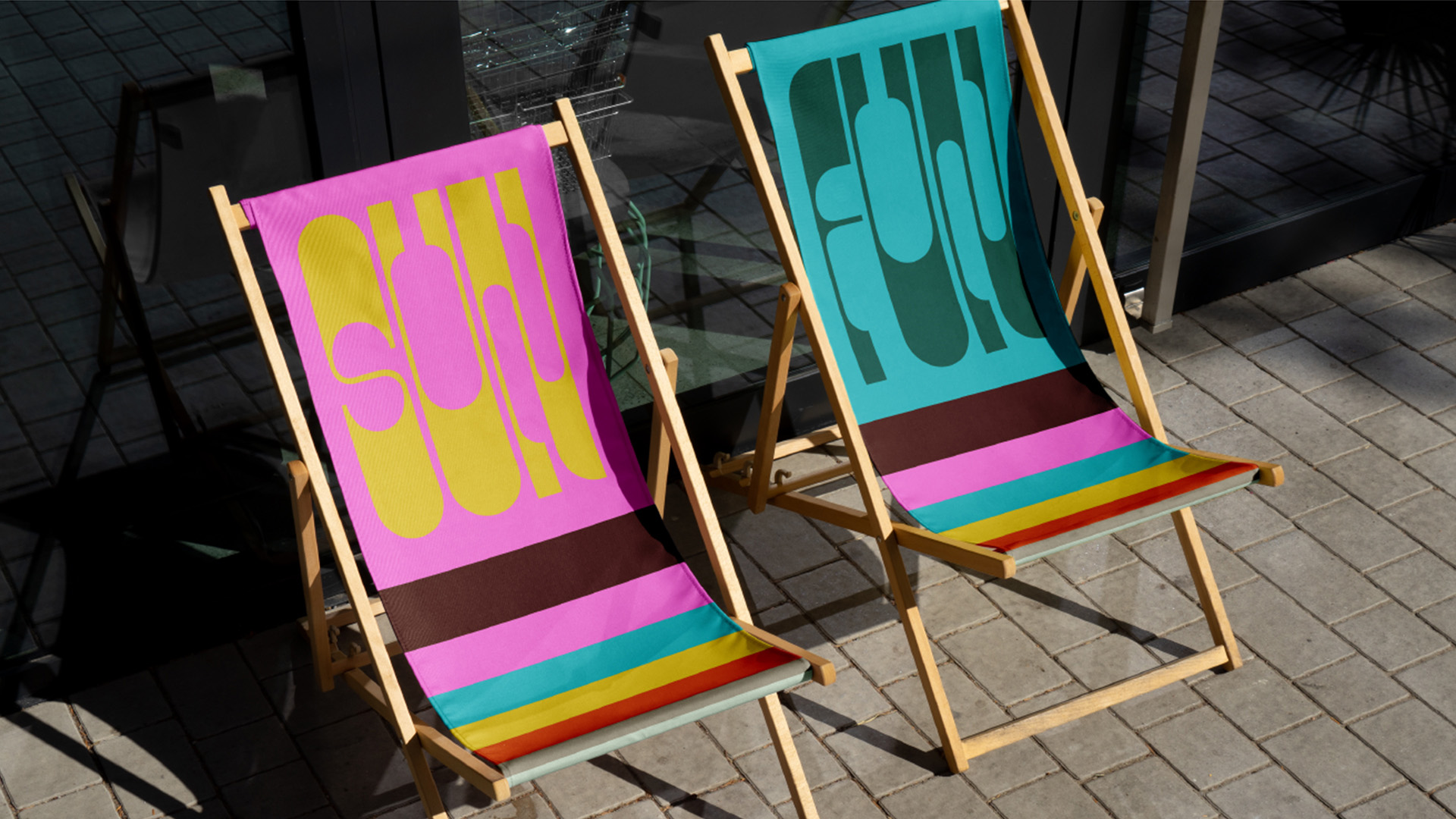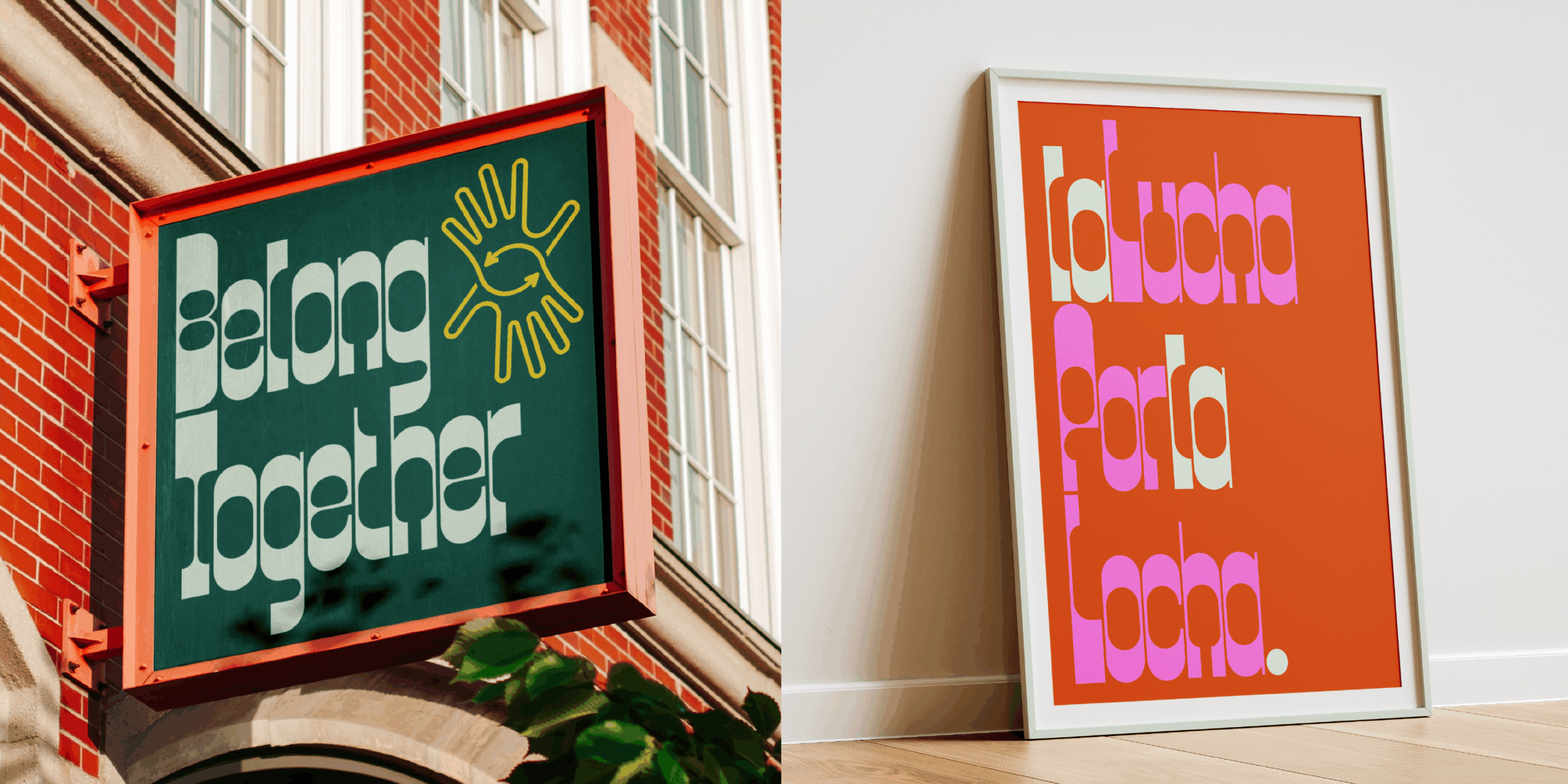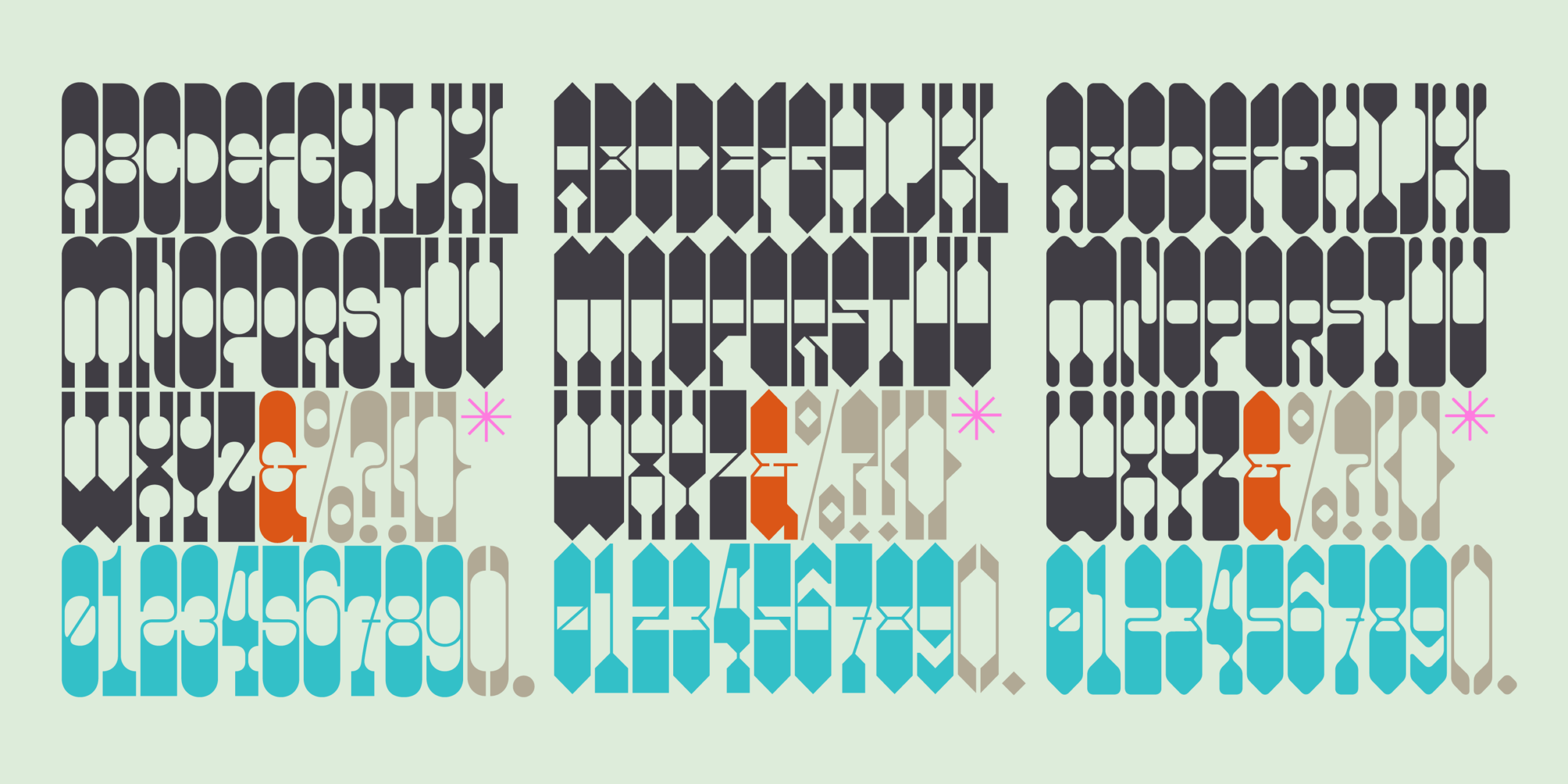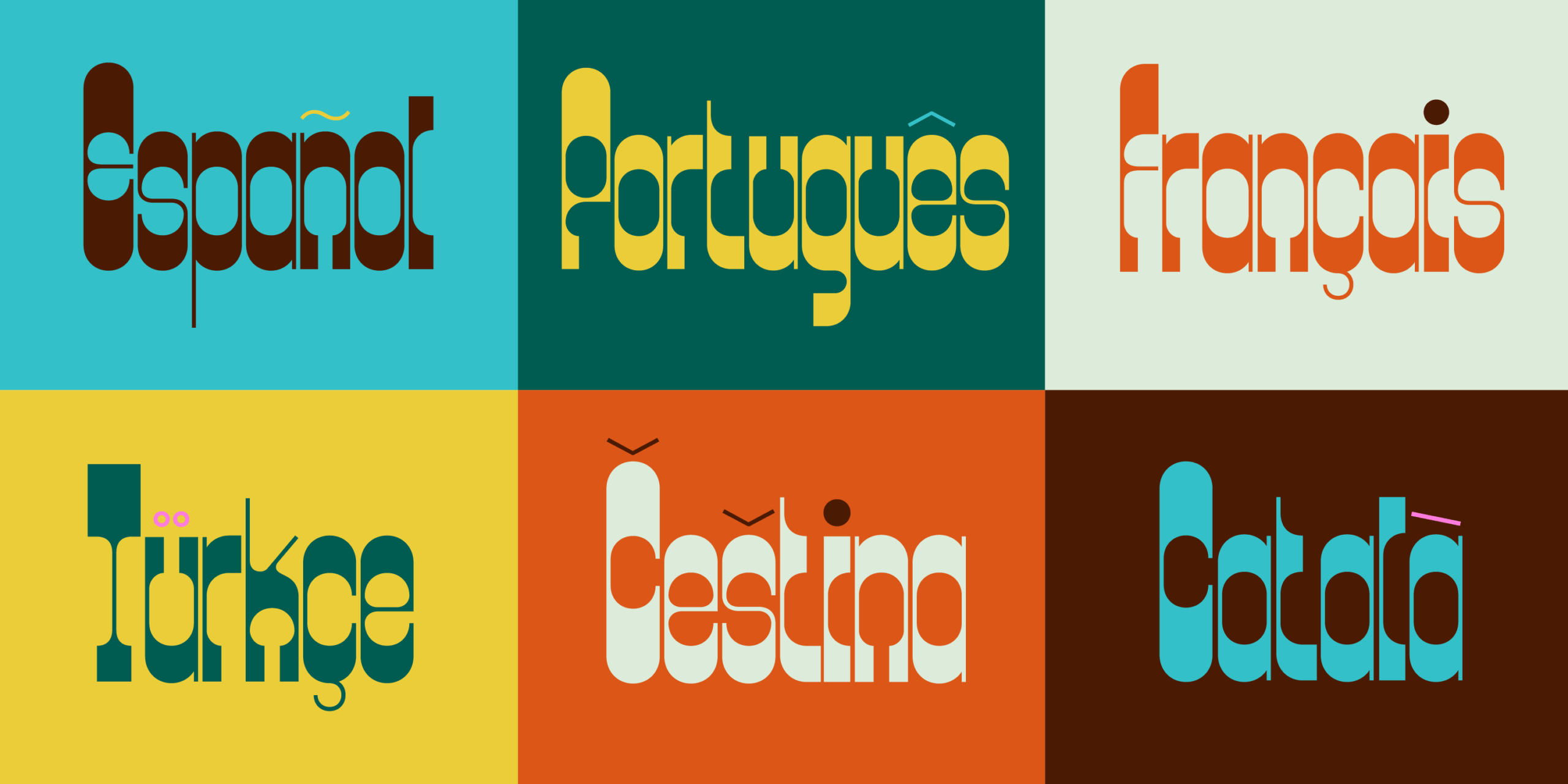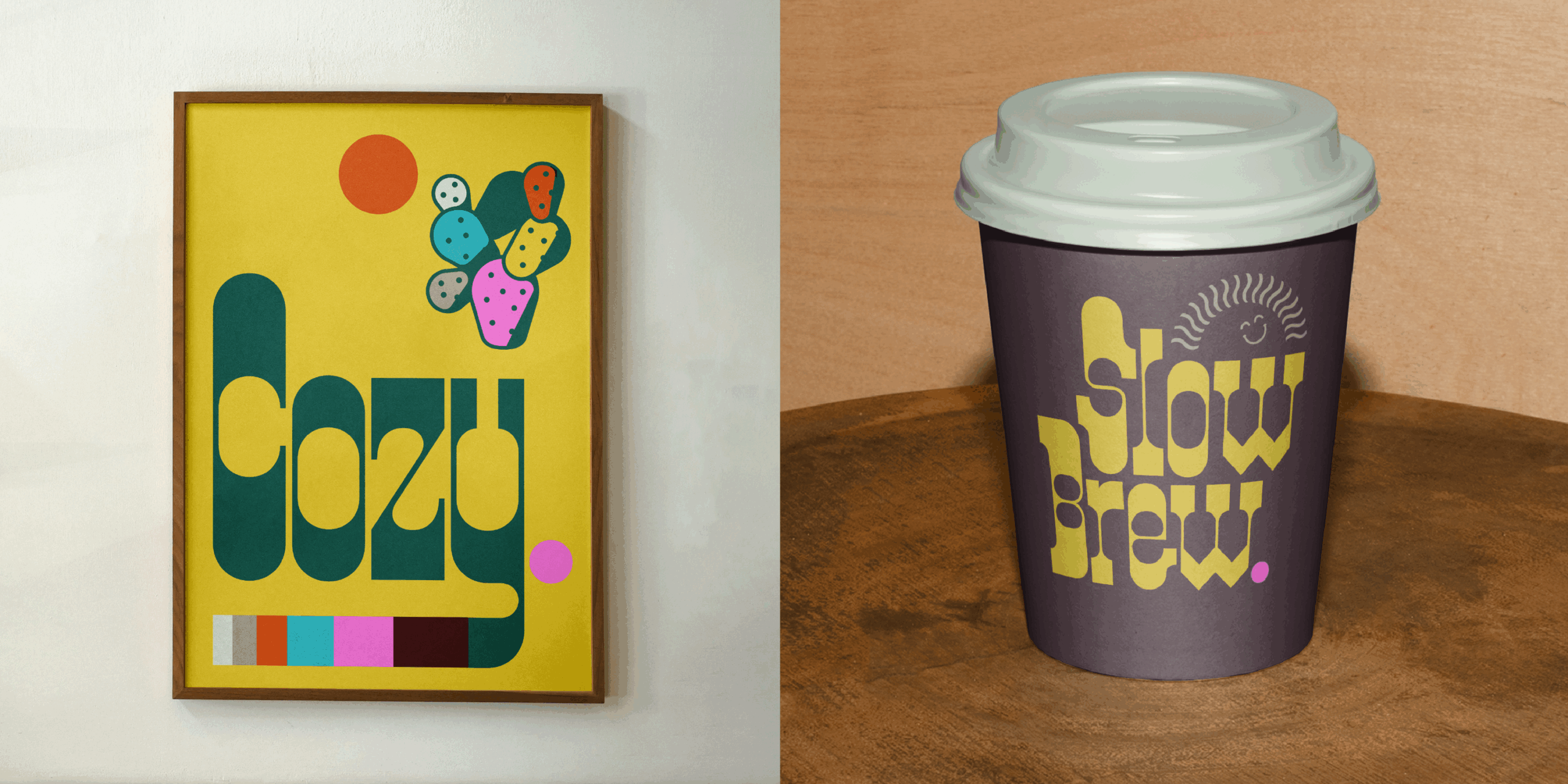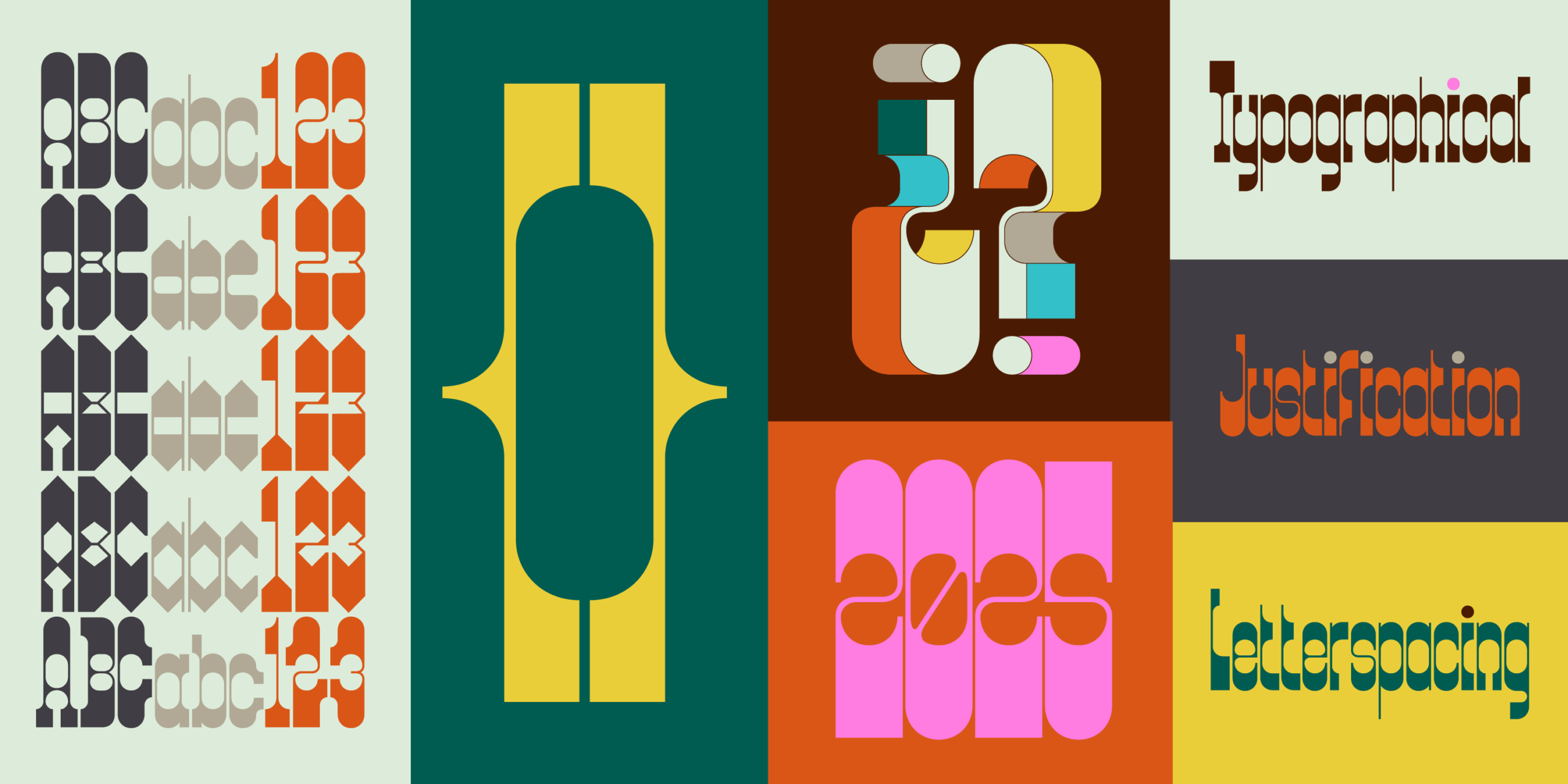
Even as designers, there’s a truth we can’t deny: our world is visually overwhelmed. Our need for quick replication and adaptability can distance us from enjoying the wonders of expressive typography. Using type as an anchor to explore our connection to the world surrounding us is becoming a lost art.
This is the feeling that Locha, the new font by In House International, seeks to change through its intentional visual rhythm. An invitation to value details from a tranquil approach.
70’s inspiration for todays needs
Designed by Alexander Wright alongside Michu Benaim Steiner and developed by Rodrigo Fuenzalida at FragType, Locha’s fun-shaped edges, constructed carefully, recall the soft geometry from 70’s type while shining with flexibility and clarity, needed for contemporary uses.
Unlocking creativity with Locha’s range of styles
Locha comes in 5 styles: Regular, Diagonal 1, Diagonal 2, Slab and Soft. Its variations add personality and distinction to any project. From headlines to branding, this display font anchors its meaning to preserving the present while remembering the past.
A Familiar Name Returns: In-House International’s Latest Work